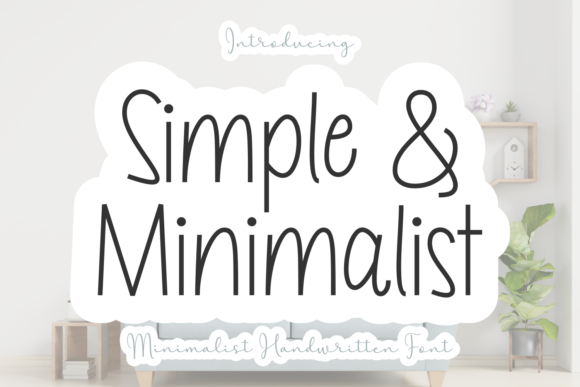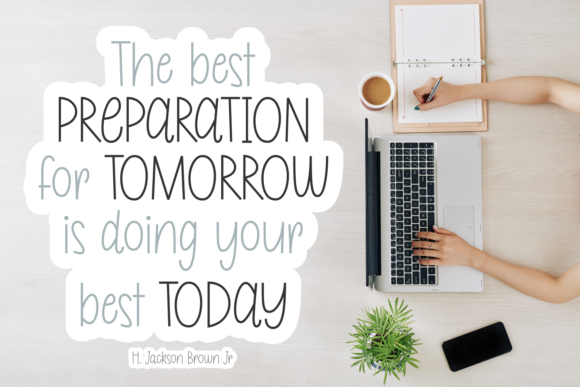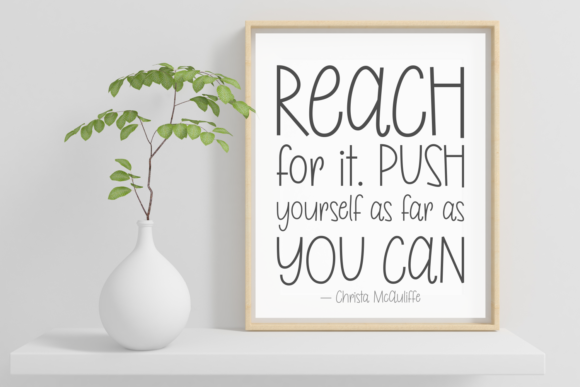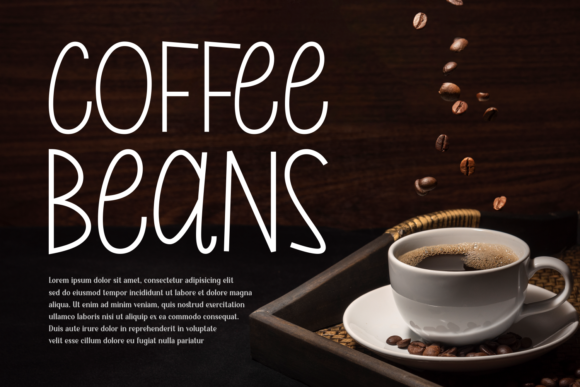
Simple and Minimalist Font
About Simple and Minimalist Font
Simple and Minimalist is a minimalist and neat handwritten font. It can easily be matched to an incredibly large set of projects, so add it to your creative ideas and notice how it makes them stand out!